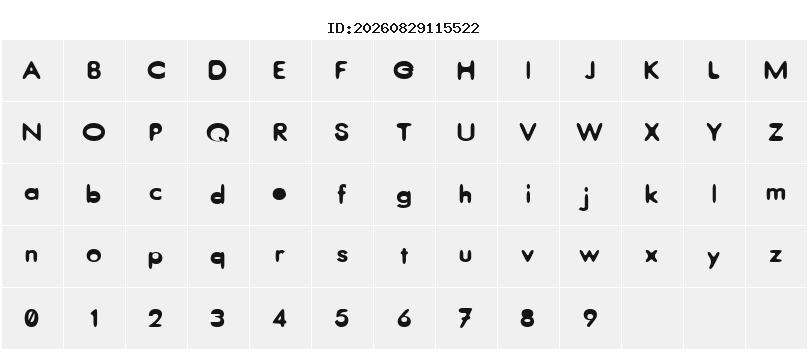
• Font Name: Thorazine
• Full Font Name: Thorazine
• Designer: Graham Meade & Apostrophe
About Thorazine.ttf
Thorazine.ttf is a modern, elegant sans-serif font designed for ultimate readability and visual harmony. Perfect for branding, headlines, web design, and print materials.